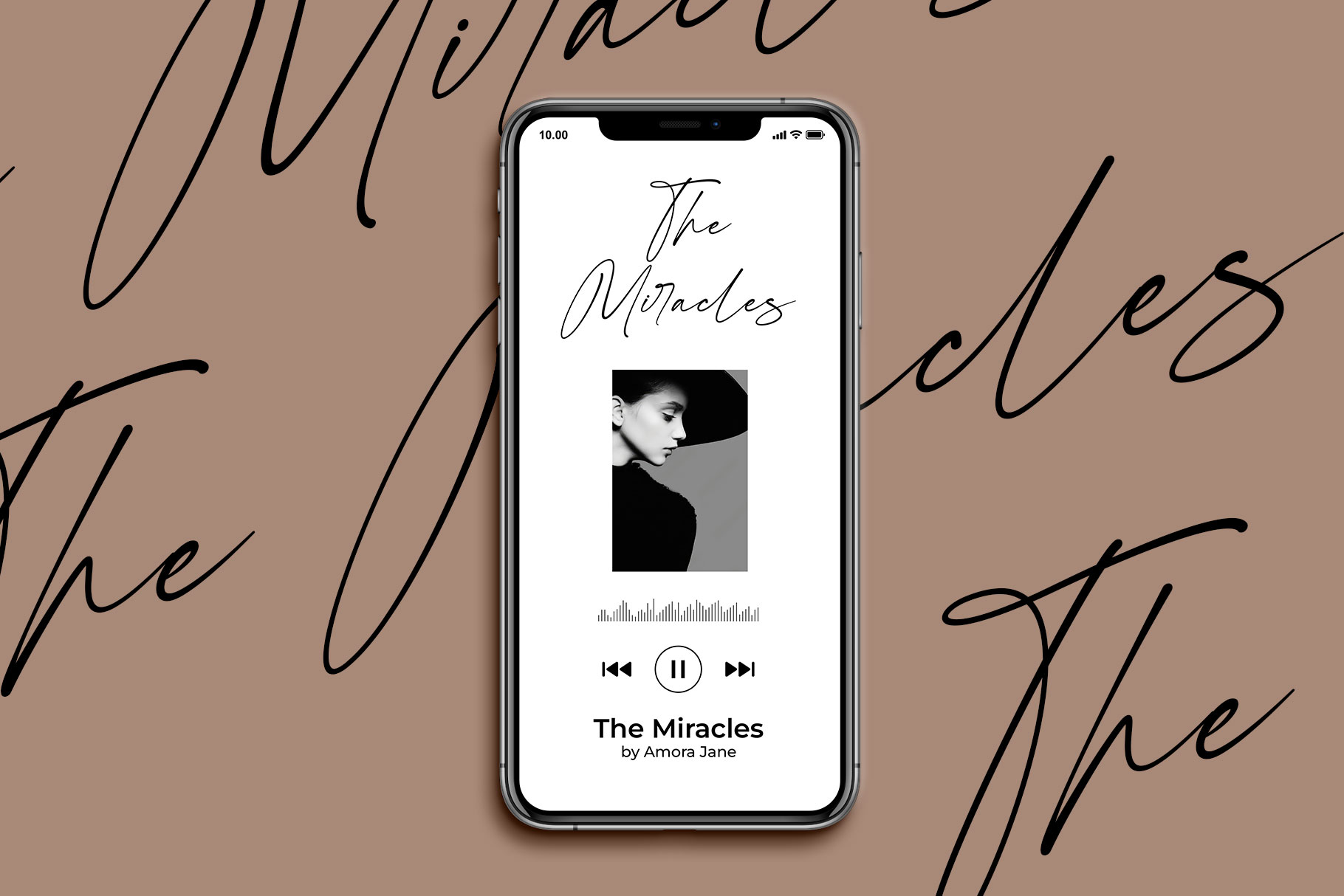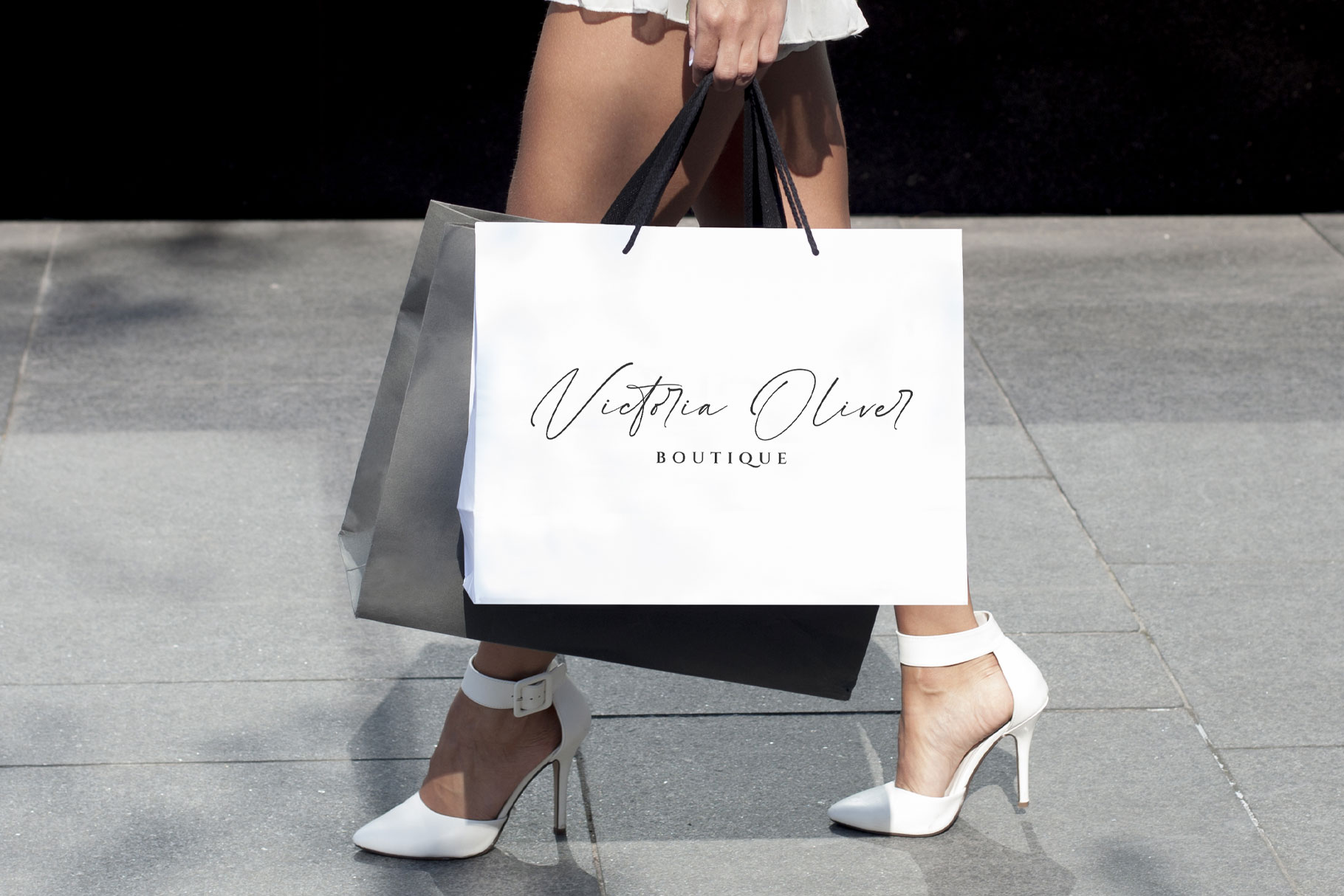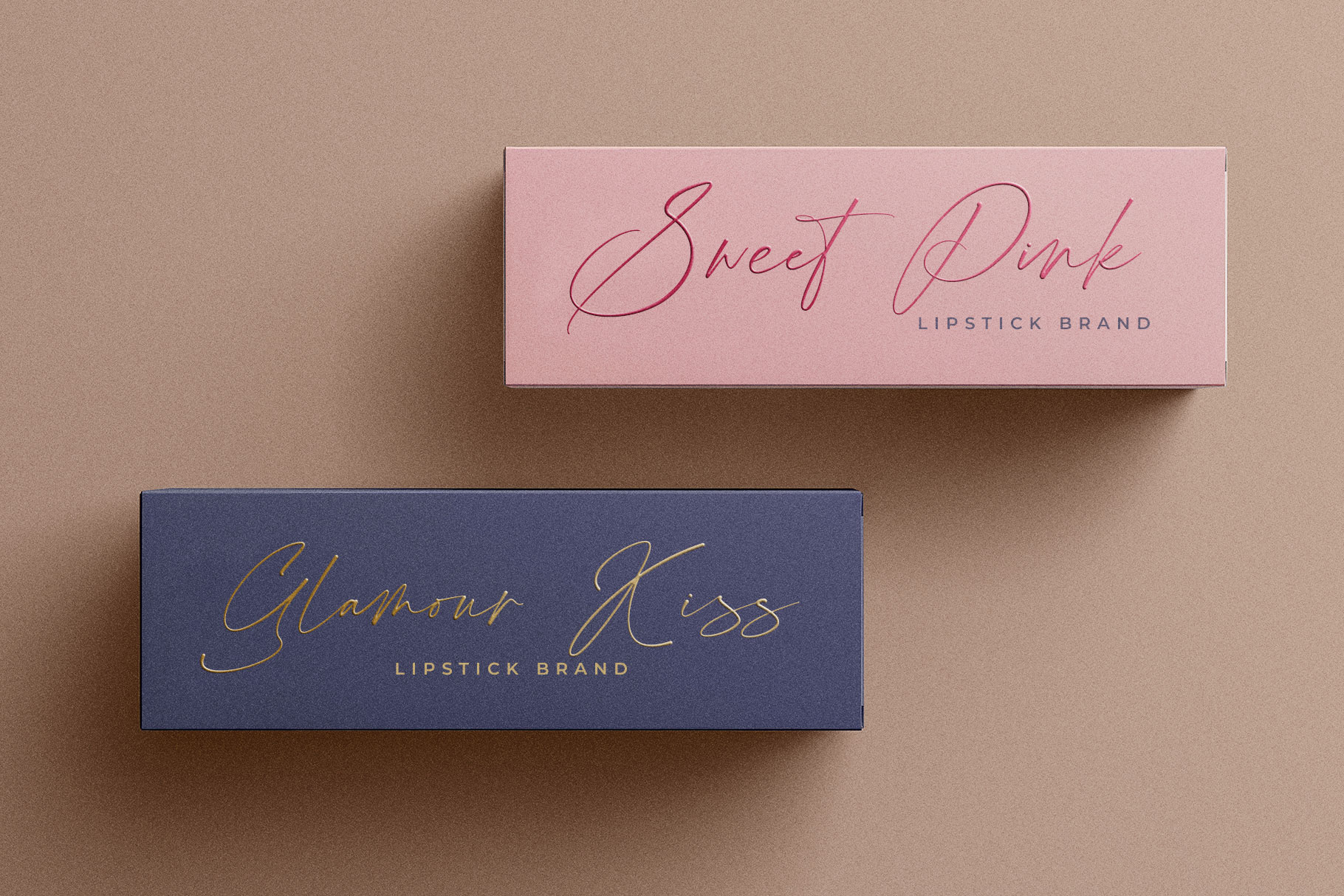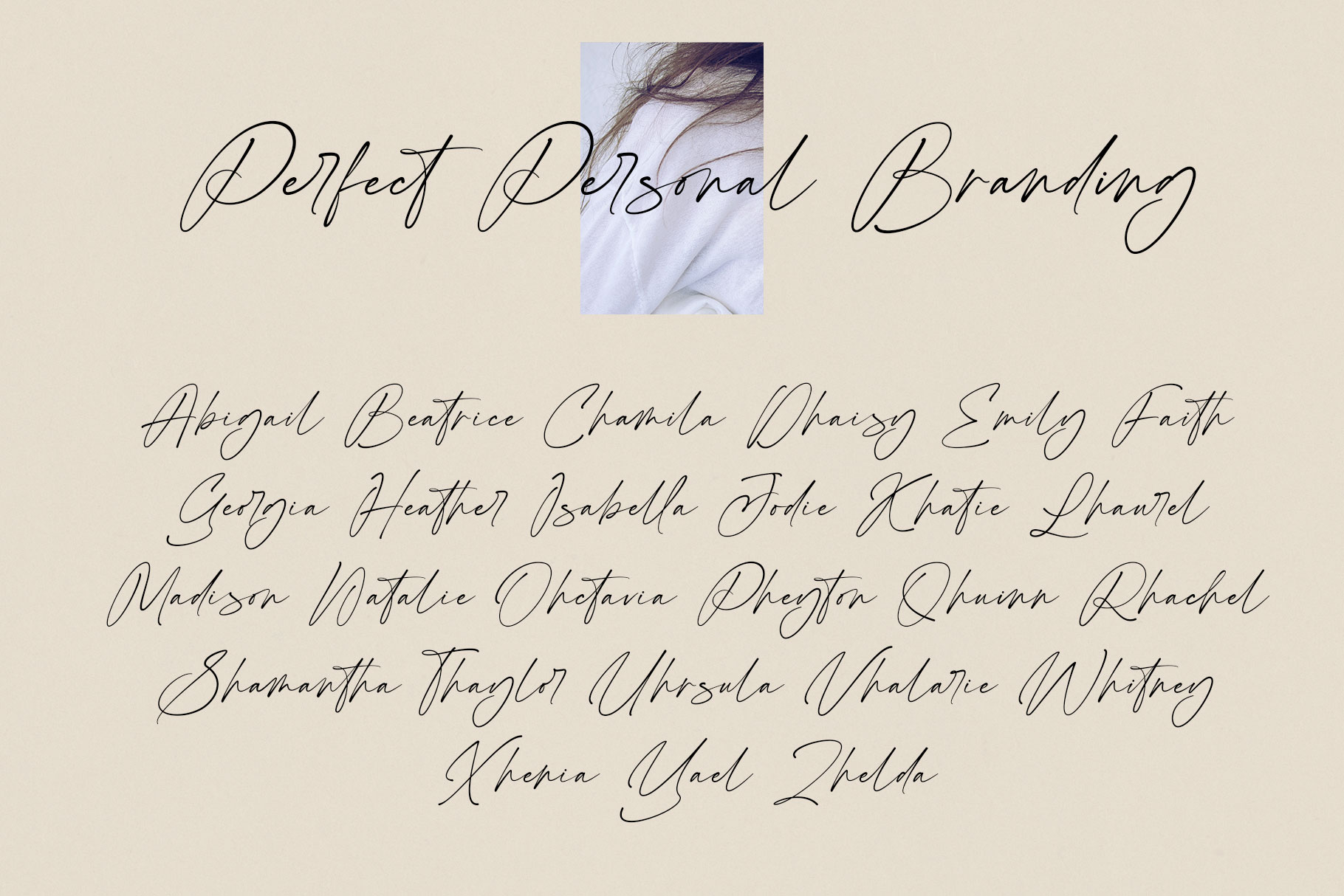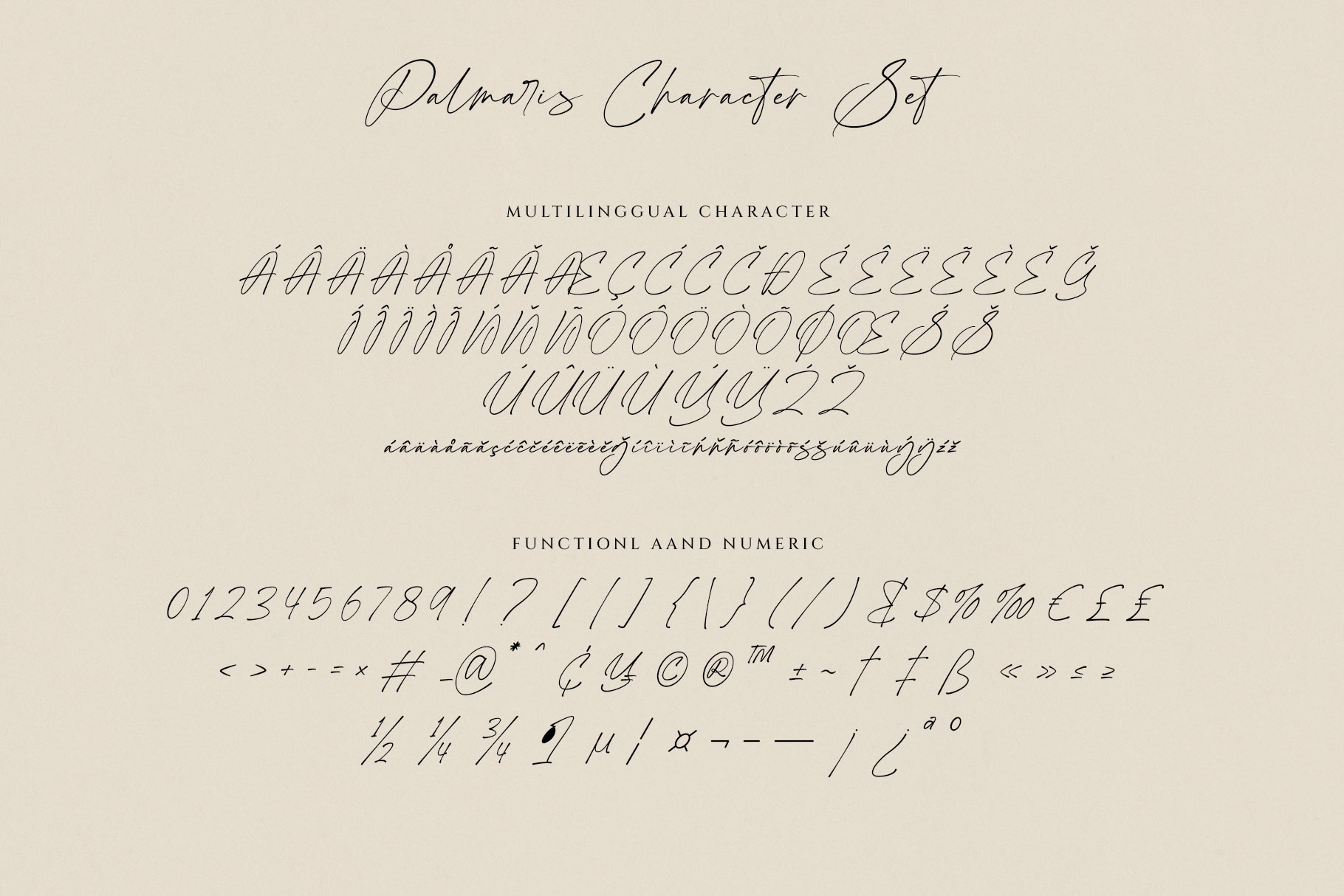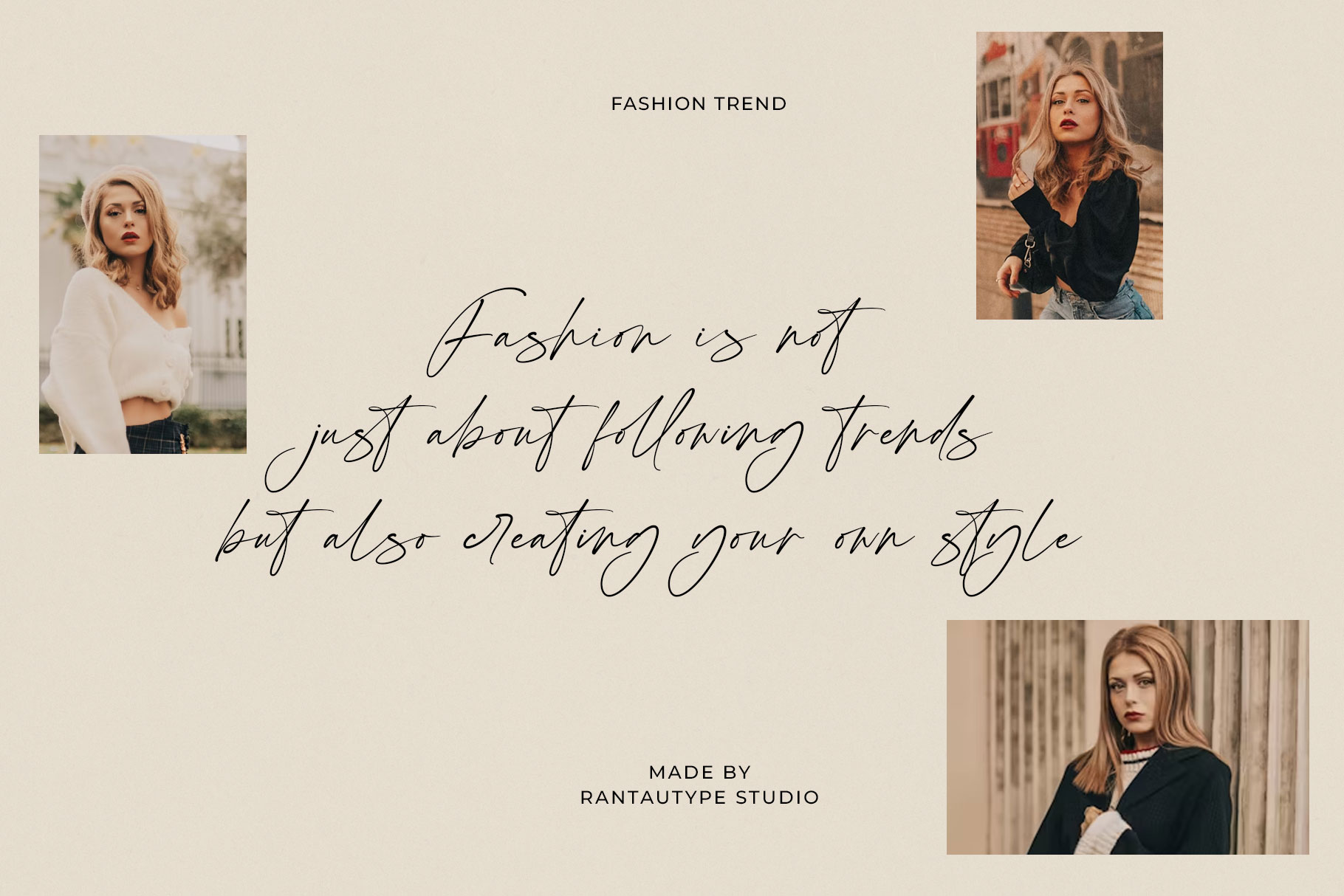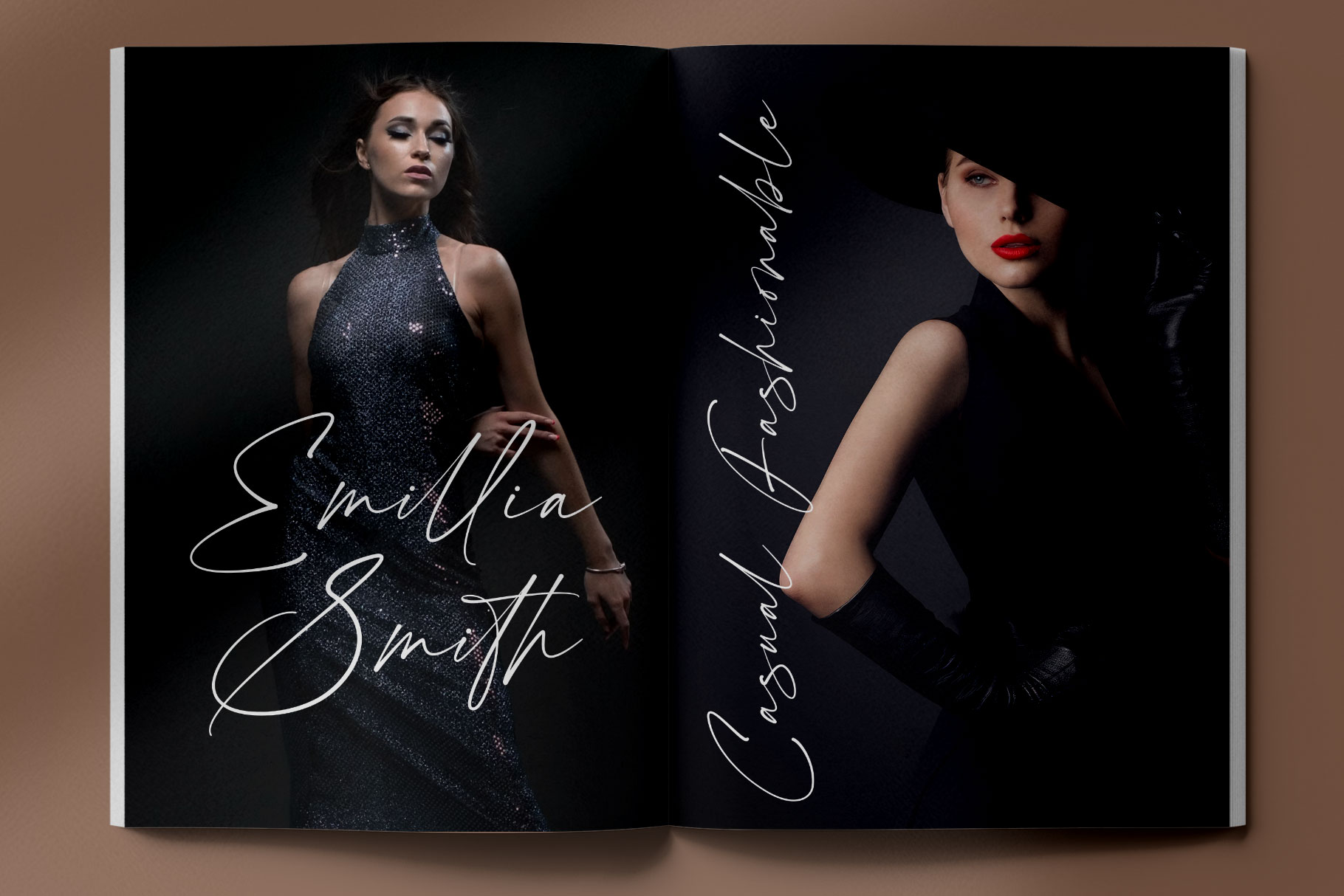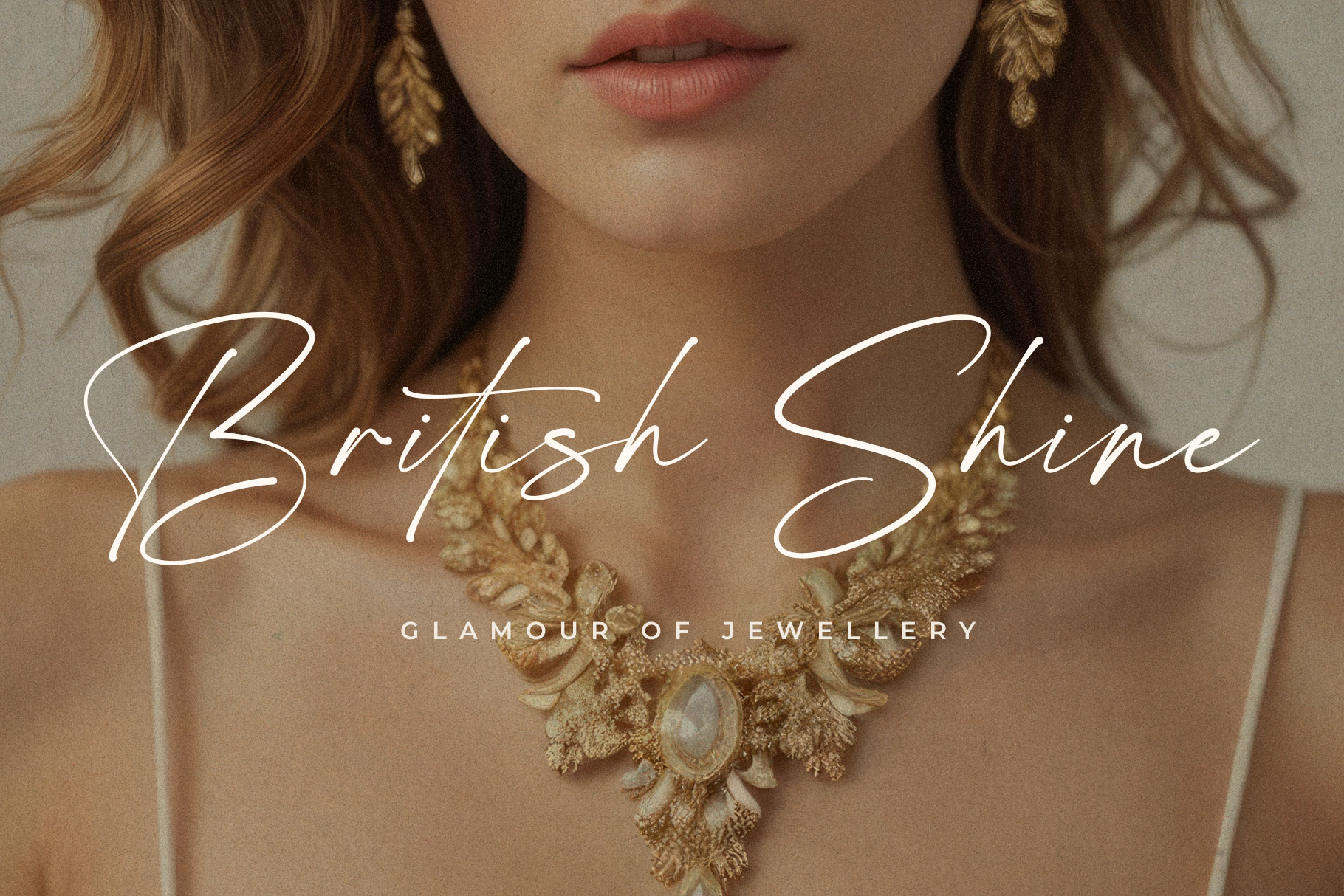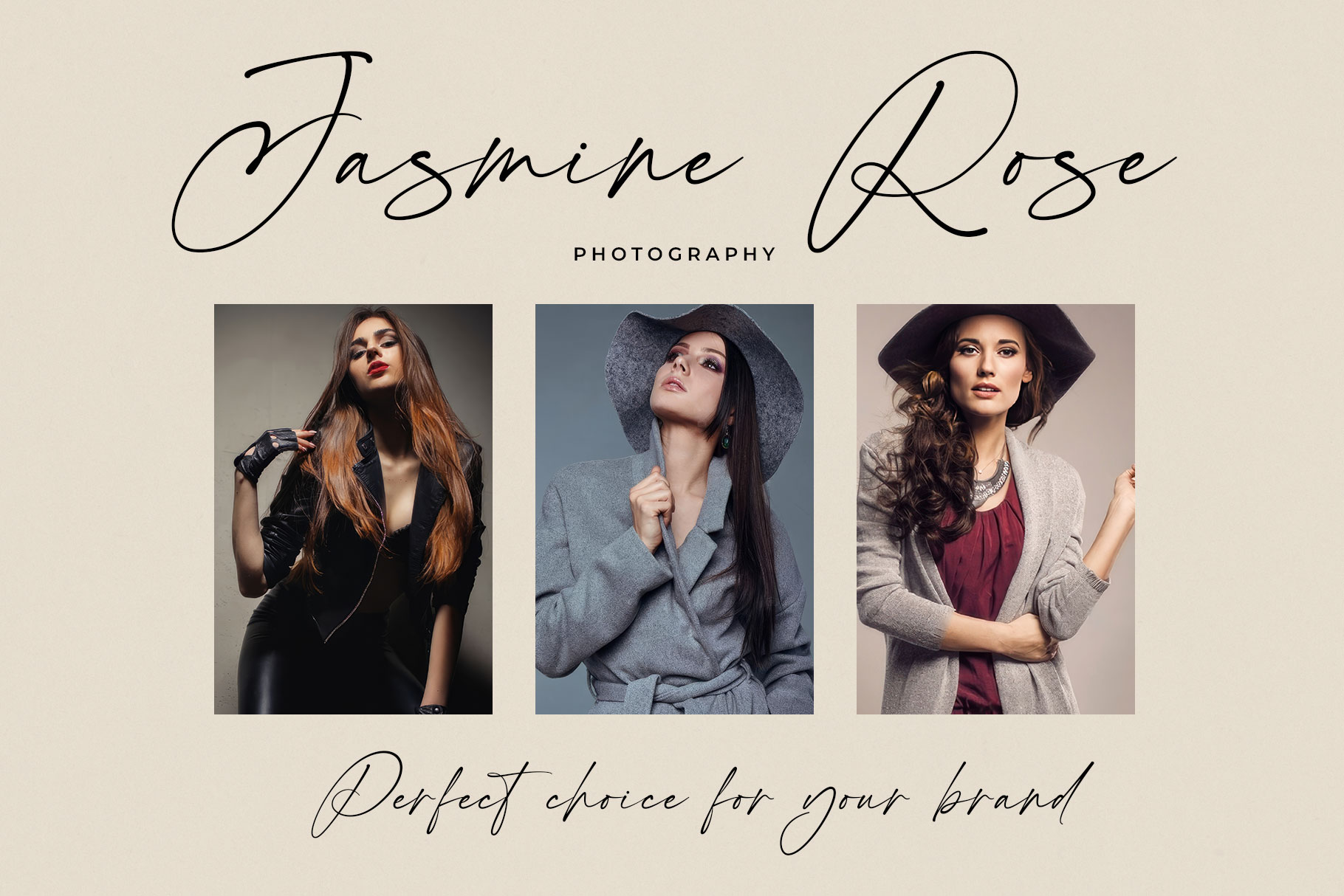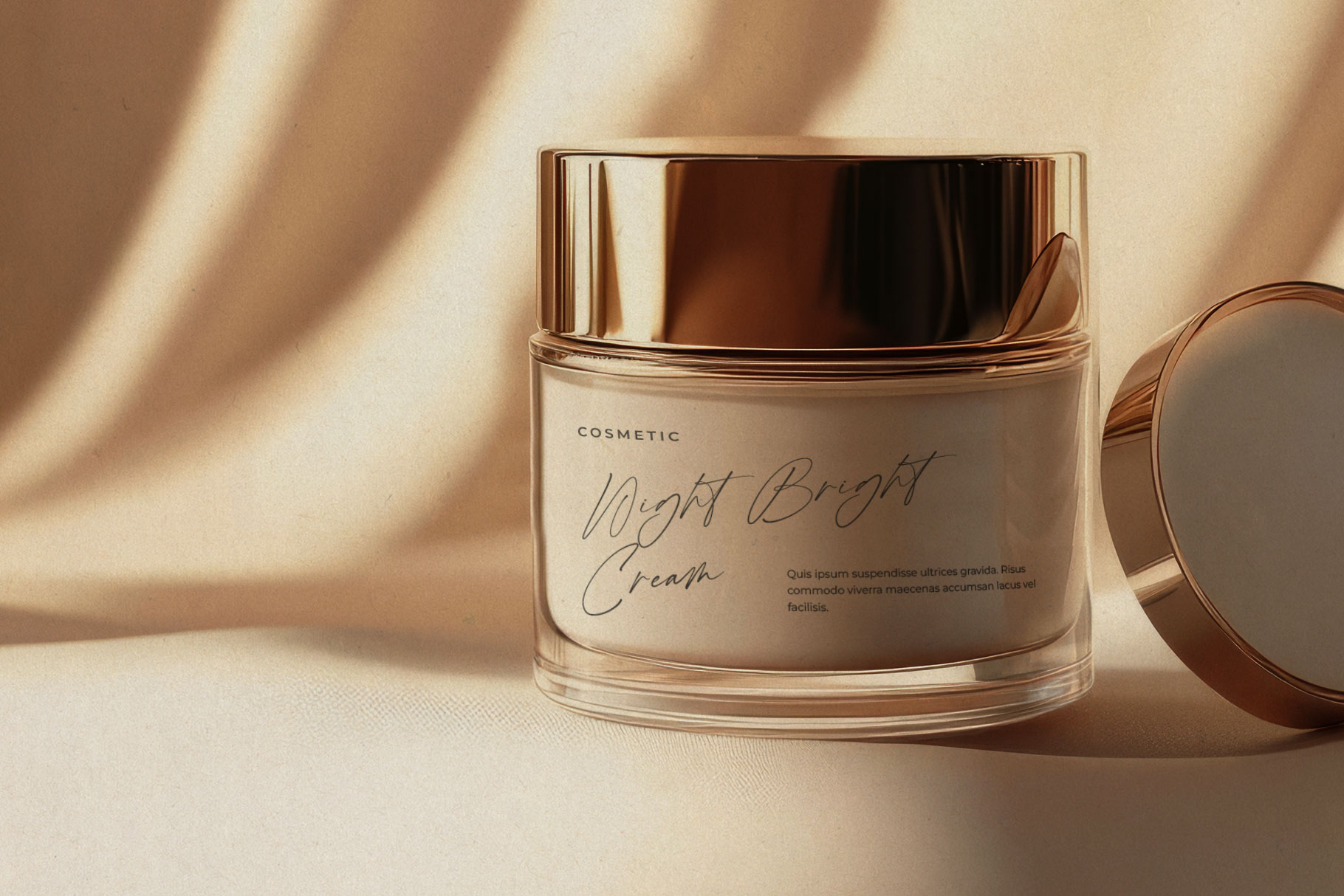
Palmaris Modern Script Font
Palmaris is modern script font with elegance style. Palmaris come with fashion and minimalist touch. Palmaris is a perfect choice for any creative endeavor, chic, lifestyle design such as logos, title, watermark on photography, cover, branding, display and magazine, wedding event, corporate brand, quotes, album cover, business card, business project, company branding and more project with handwritten taste.